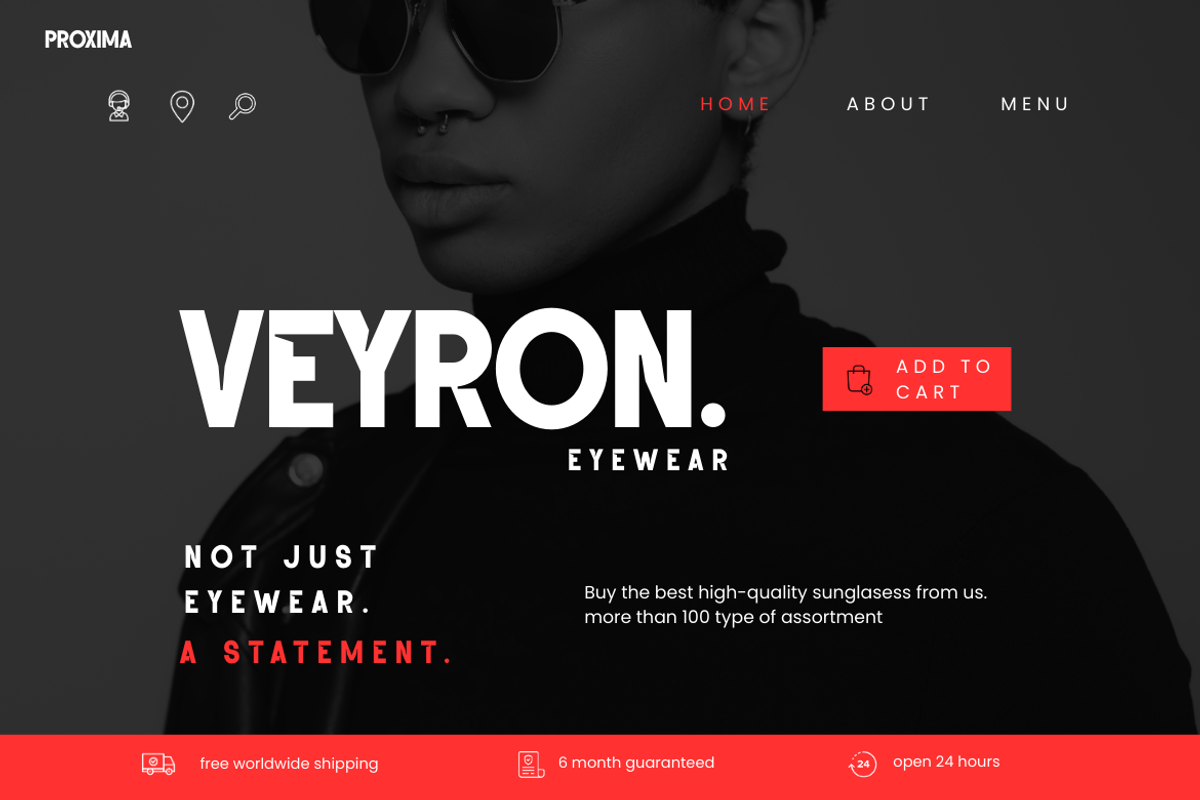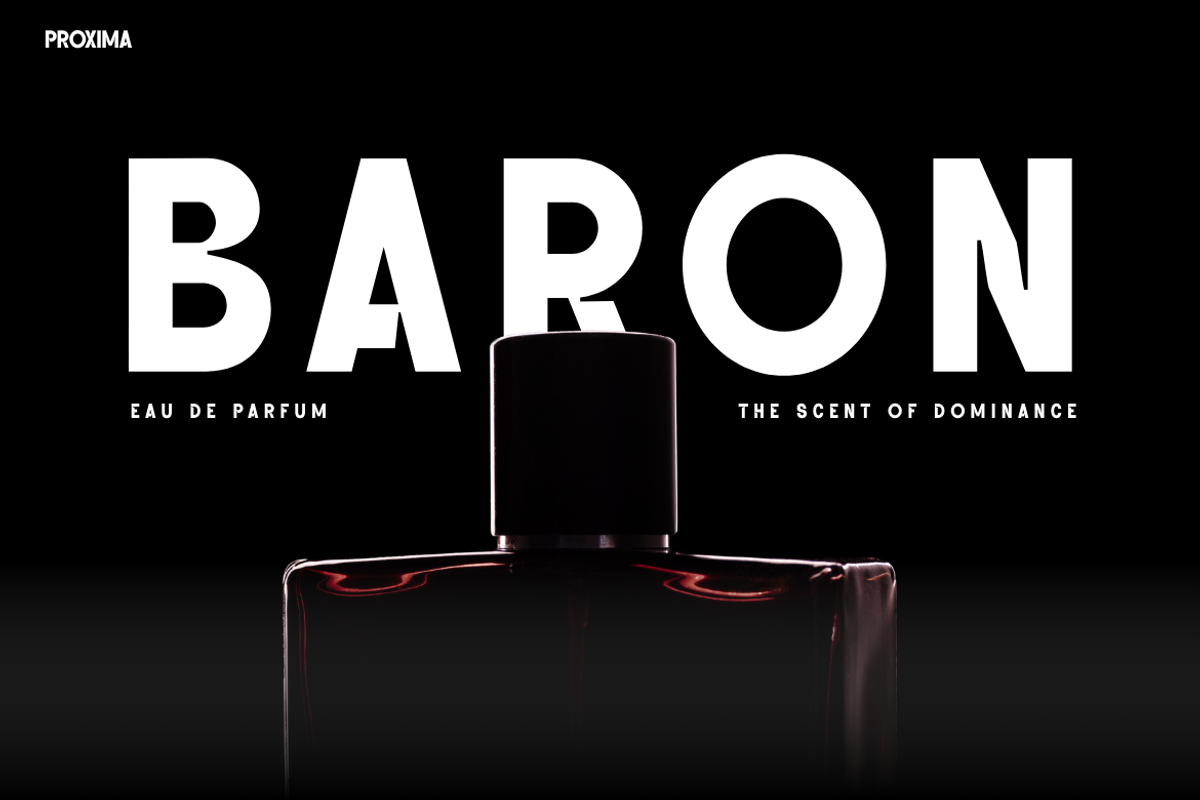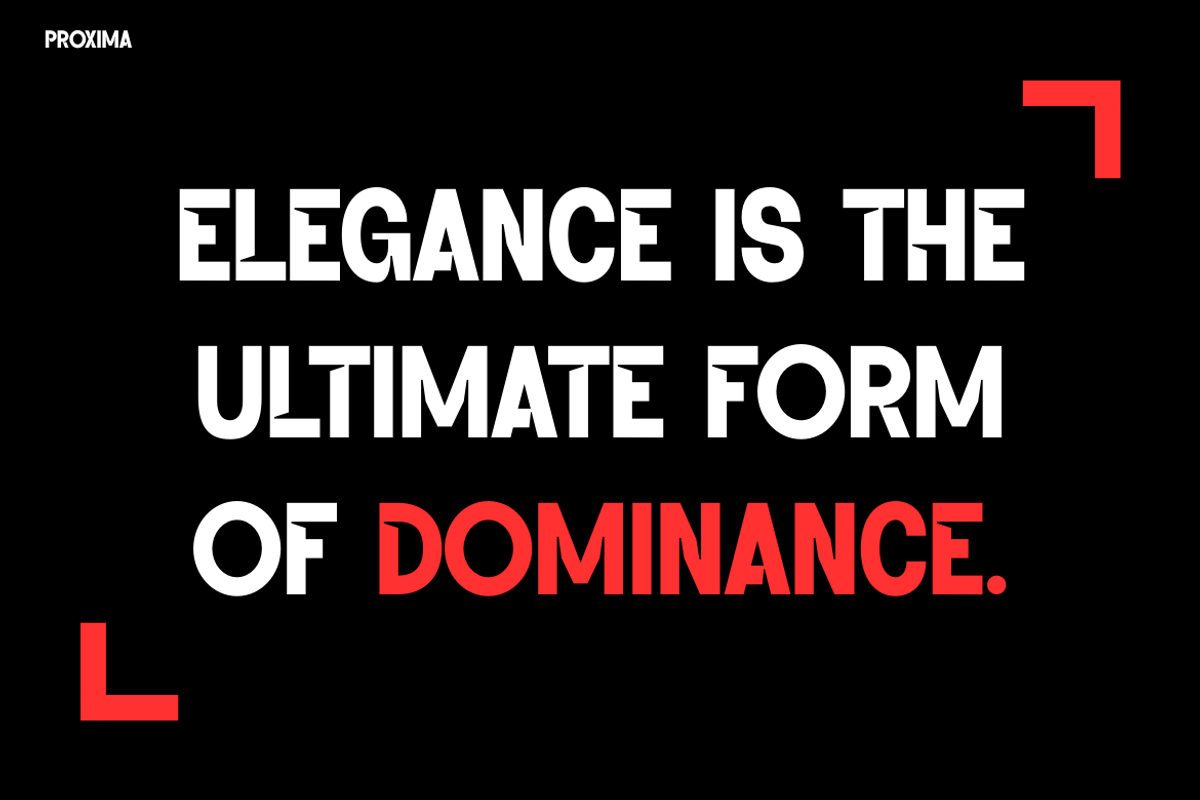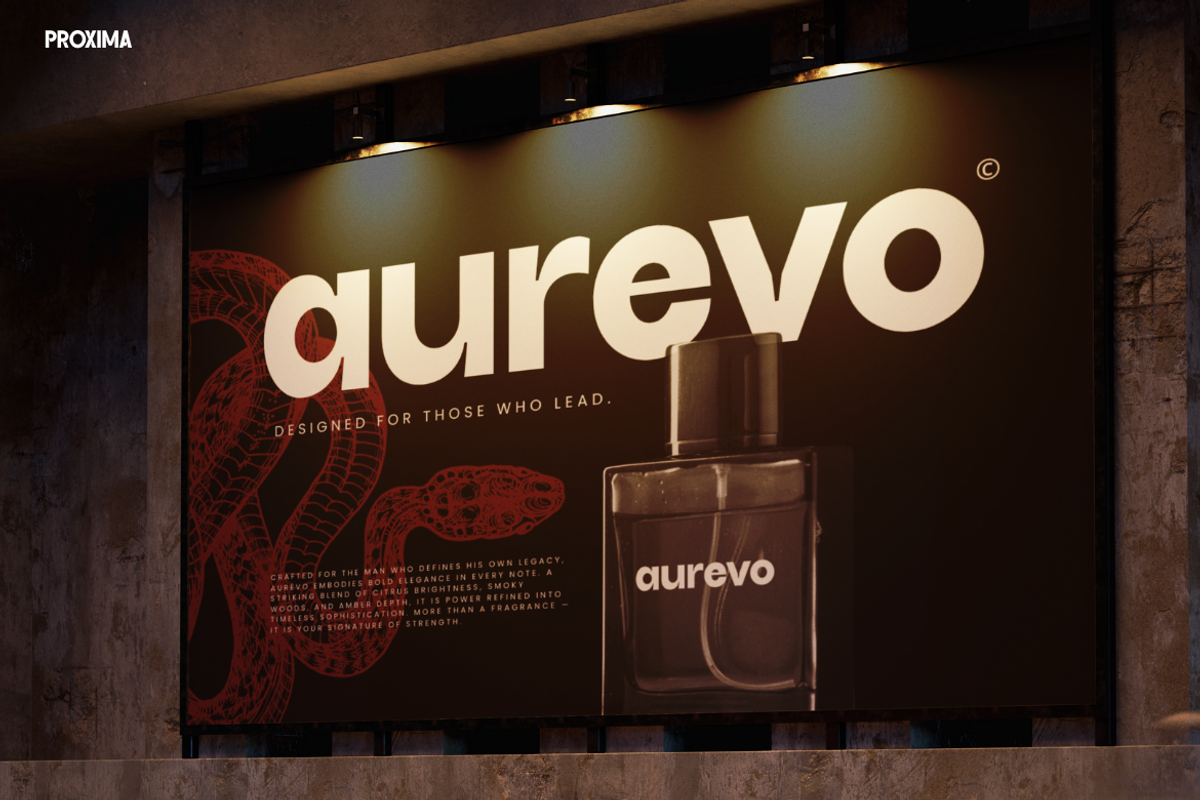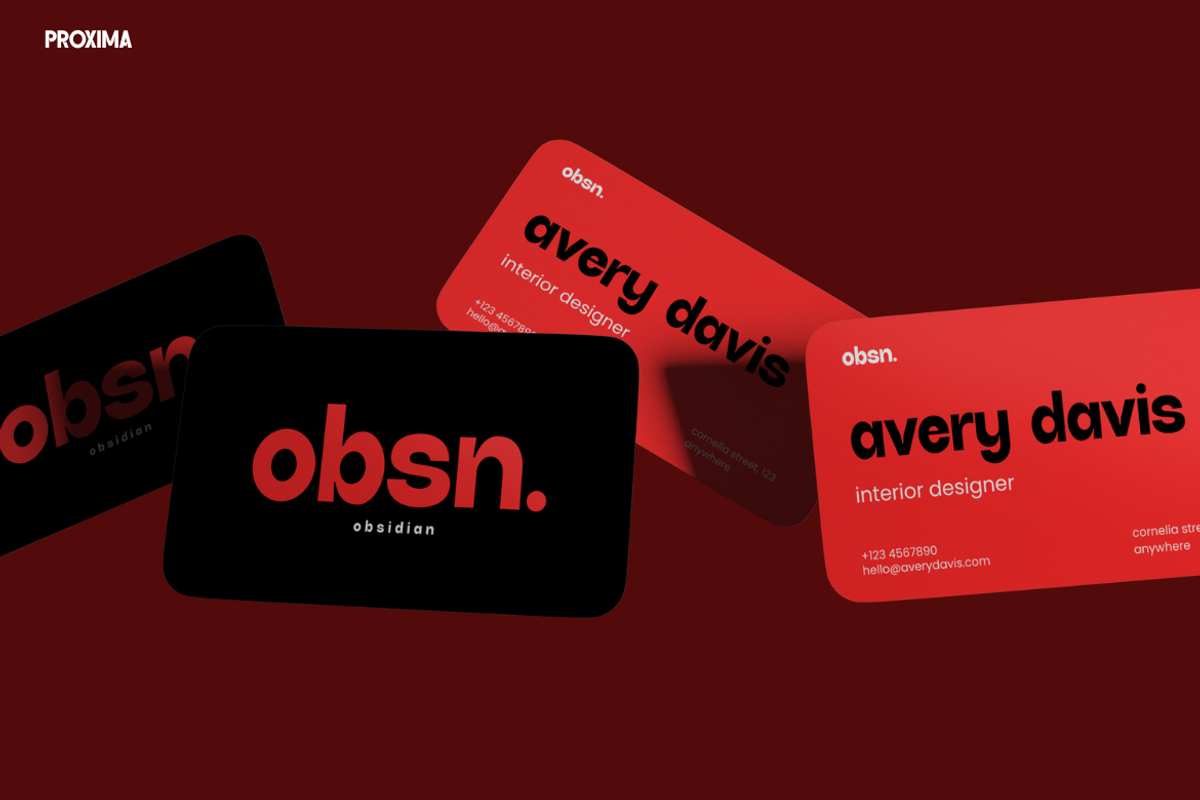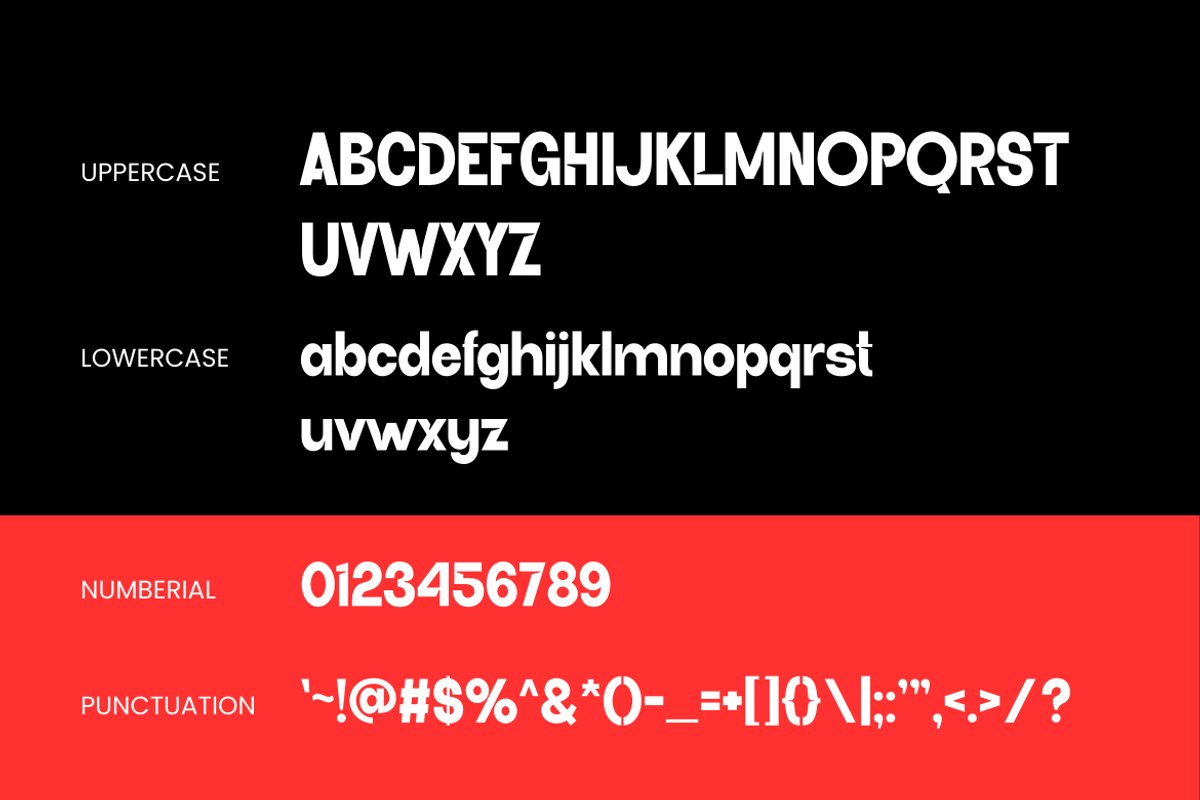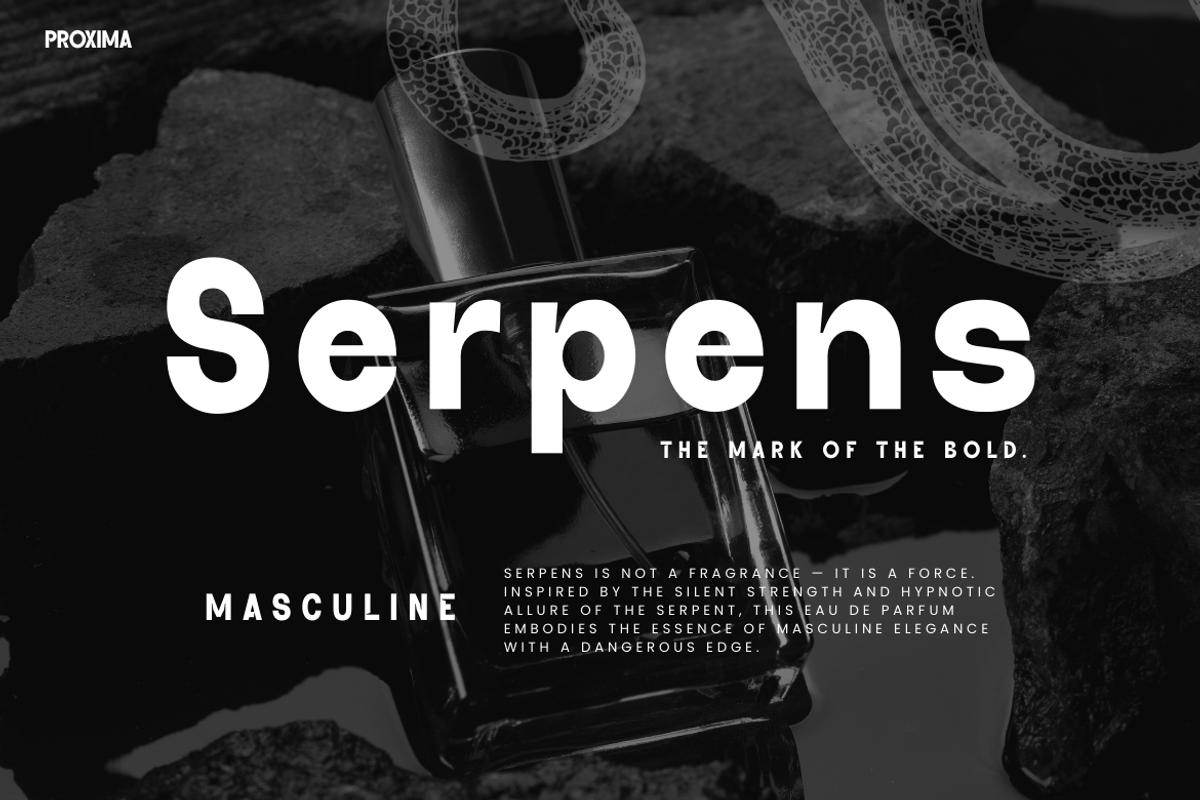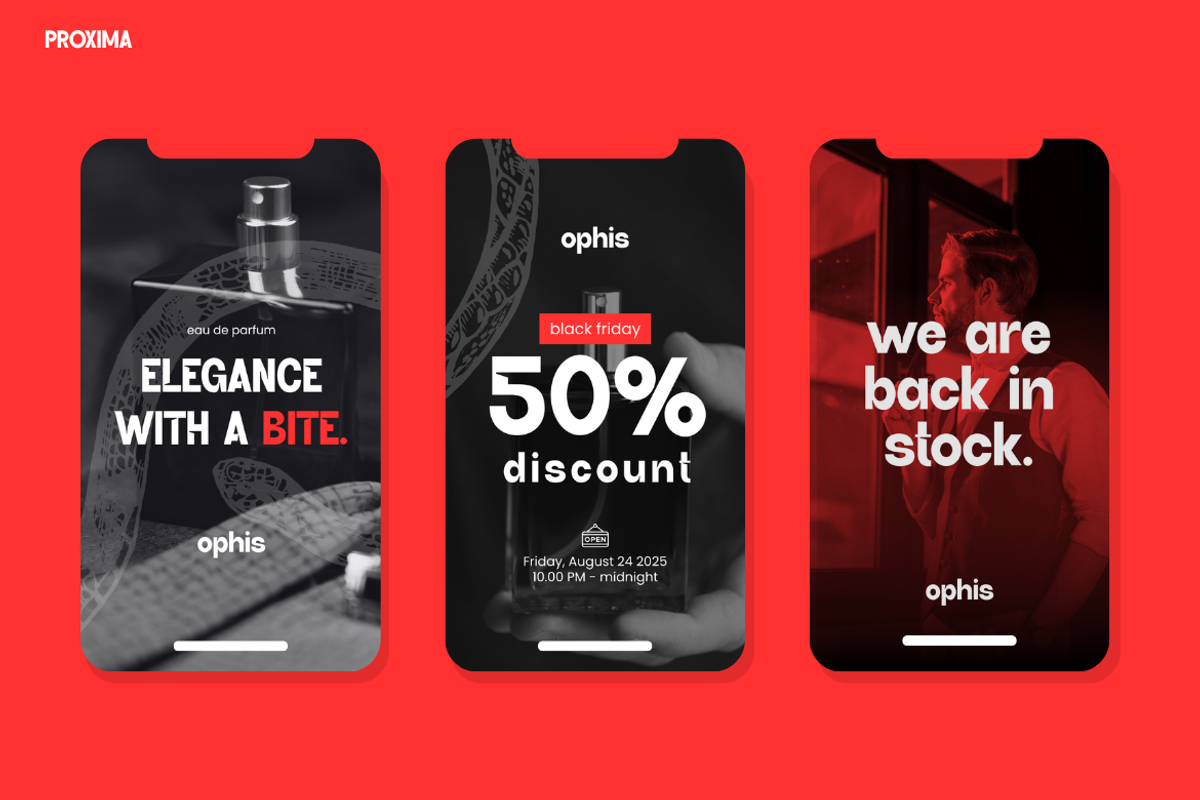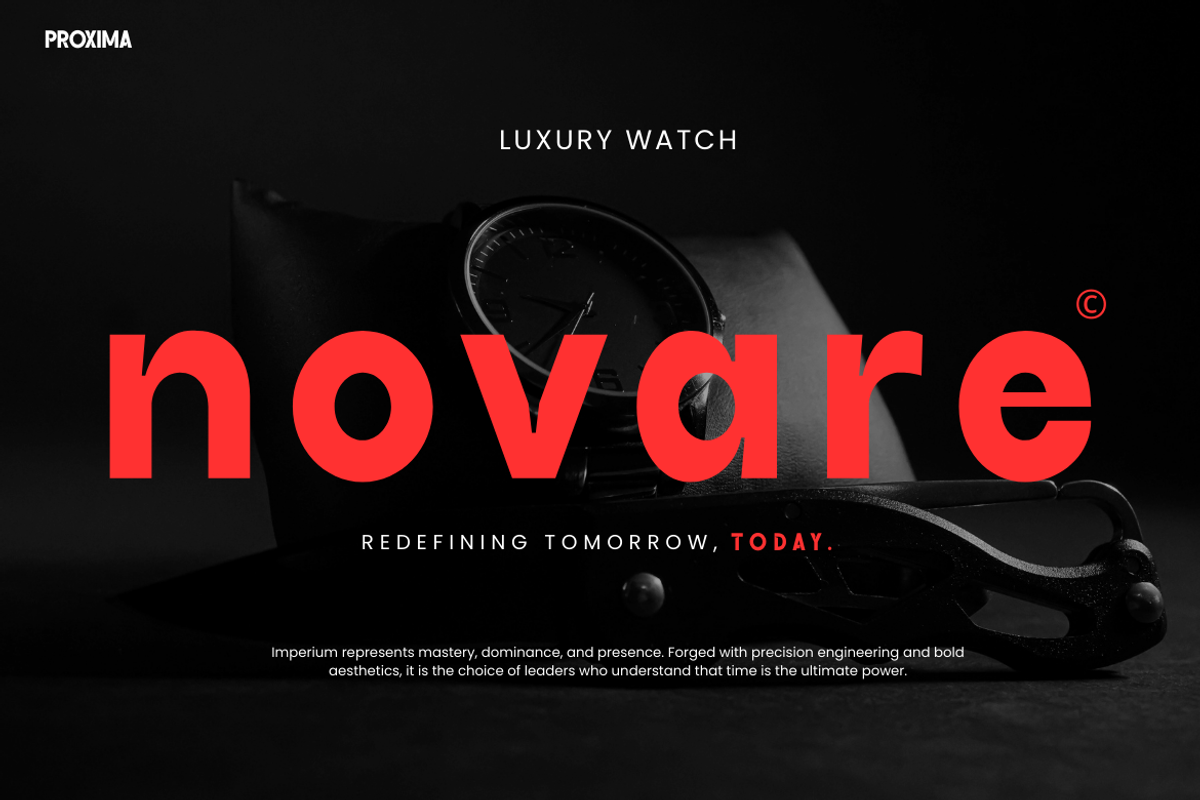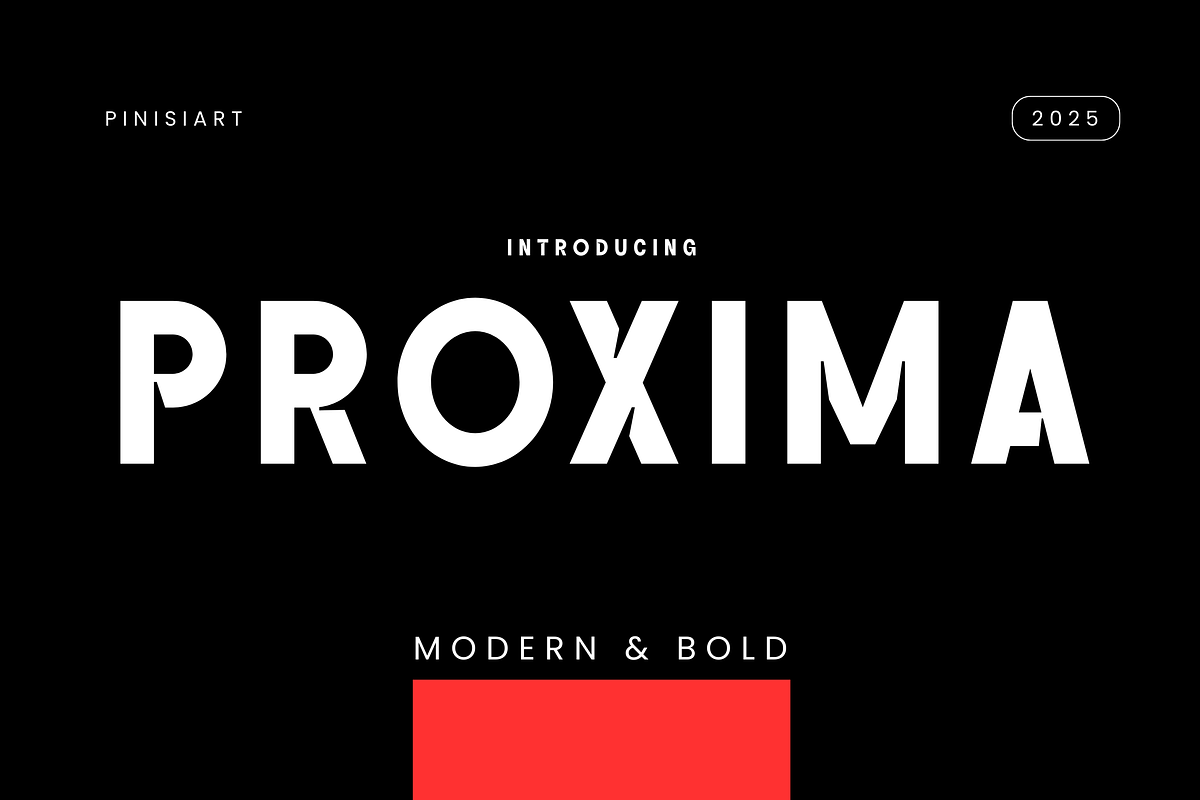
PROXIMA
PROXIMA – Modern Bold Elegance Instagram Font PROXIMA offers more than typography—it delivers a visual statement of strength, clarity, and timeless style. With sharp lines, balanced proportions, and confident boldness, this font redefines modern aesthetics for digital and print projects. Moreover, whether you build a luxury brand, launch a product, or create eye-catching social media content, PROXIMA gives you a perfect mix of sophistication and readability. As a result, your designs gain instant authority and modern appeal.
Why Instagram Font PROXIMA is Unique The beauty of Instagram Font PROXIMA comes from its versatility. Unlike ordinary fonts, it combines a strong modernist influence with a rare balance of dominance and elegance. In addition, uppercase characters stand tall and striking, making headlines impossible to ignore, while lowercase letters flow with balance and harmony, ensuring smooth readability. Therefore, PROXIMA feels fresh yet timeless, bold yet minimal—qualities that creative professionals consistently seek.
Furthermore, the font’s clean geometry adapts to different styles without losing its personality. Consequently, you can apply it to branding, editorial layouts, packaging, or digital promotions while keeping your visual identity strong and consistent.